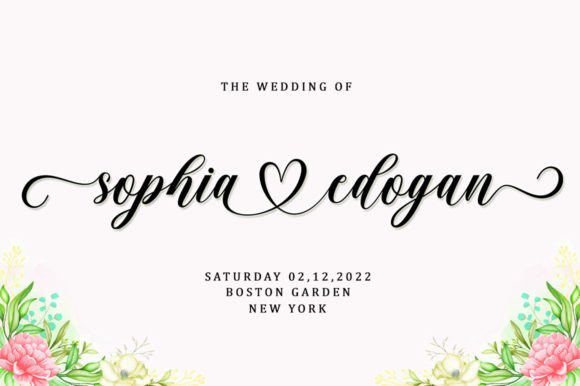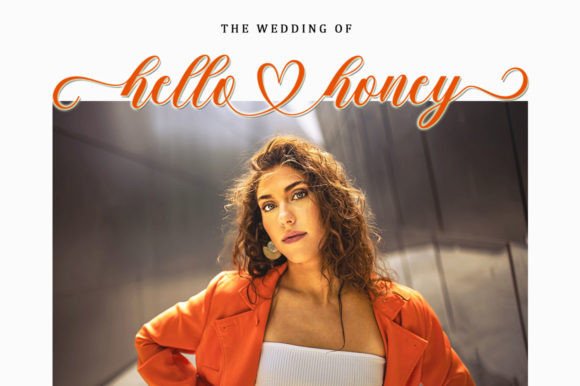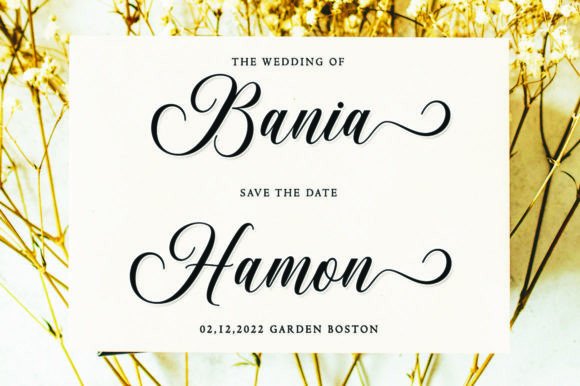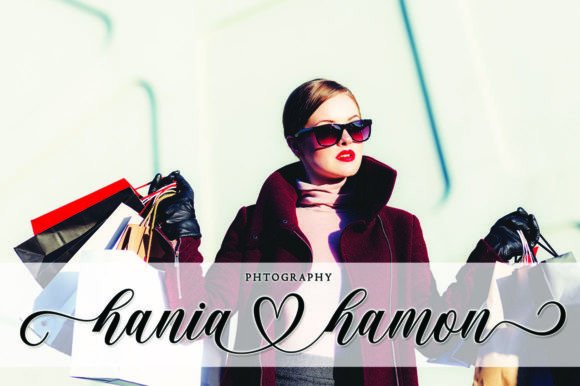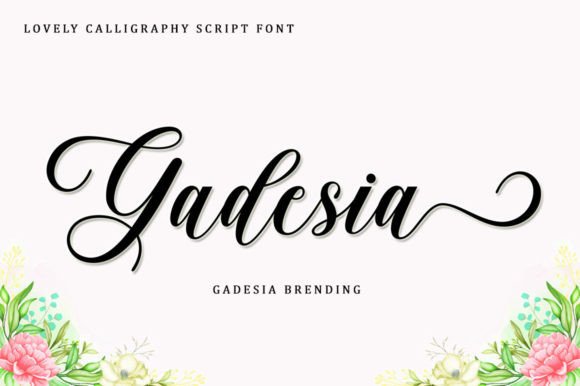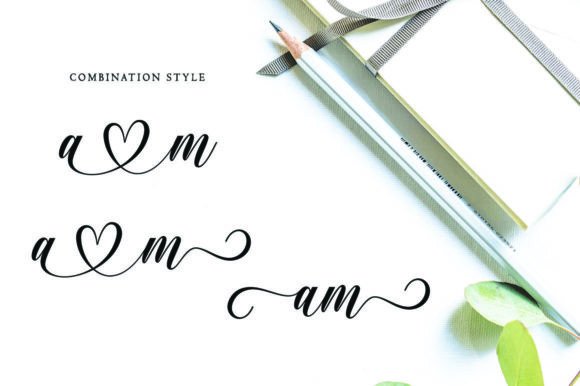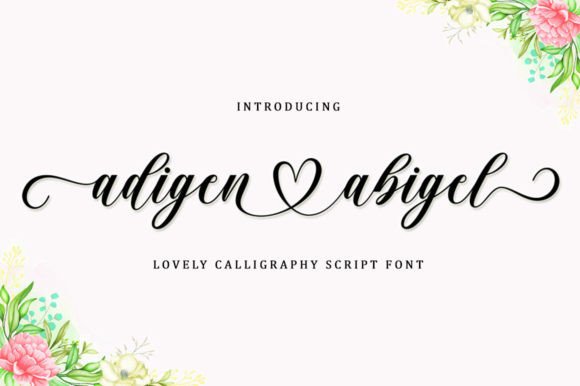
Introducing Adigen Abigel Font: A Modern Script Typeface with a Touch of Elegance
In the world of typography, fonts play a crucial role in conveying the tone and personality of a brand or design. For designers and crafters looking for a modern script font that exudes elegance and sophistication, Adigen Abigel is an excellent choice. This beautiful font is a classic copper decorative script typeface with a modern touch, designed with great detail to present a cute and elegant style.
What Makes Adigen Abigel Unique?
Adigen Abigel is a unique font that stands out from the rest due to its distinctive features. One of its most notable characteristics is the heart in the middle of the font, which adds a touch of whimsy and romance. The typeface is pleasing to the eye, clean, feminine, sensual, glamorous, simple, and very easy to read due to the many luxurious letter connections. These features make Adigen Abigel an ideal choice for designers who want to create stunning visual content that captures the essence of their brand or message.
Design and Encoding
Adigen Abigel is a meticulously designed font that boasts a high level of detail and craftsmanship. The font is PUA encoded, which means that you can access all of the glyphs and swashes with ease. This feature makes it simple to use and customize the font to suit your design needs. With Adigen Abigel, you can create beautiful and intricate designs that showcase your creativity and attention to detail.
Use Cases for Adigen Abigel
Adigen Abigel is a versatile font that can be used in a variety of design projects. Its classy and elegant style makes it suitable for formal forms such as:
- Invitations: Create stunning wedding invitations, birthday invitations, or any other type of invitation that requires a touch of elegance.
- Labels: Design beautiful labels for products, gifts, or any other item that requires a personalized touch.
- Restaurant Menus: Add a touch of sophistication to your restaurant menu with Adigen Abigel.
- Logos: Create a memorable logo for your brand that exudes elegance and style.
- Fashion and Makeup: Use Adigen Abigel to create stunning promotional materials for your fashion or makeup brand.
- Stationery: Design beautiful stationery, including notebooks, journals, and greeting cards.
- Novels and Magazines: Use Adigen Abigel to create visually appealing book covers or magazine layouts.
- Packaging: Add a touch of elegance to your product packaging with Adigen Abigel.
- Advertisements: Create stunning advertisements that capture the attention of your target audience.
Why Choose Adigen Abigel?
Adigen Abigel is an excellent choice for designers and crafters who want to create stunning visual content that exudes elegance and sophistication. Here are some reasons why you should choose Adigen Abigel:
- Unique Design: Adigen Abigel boasts a unique design that sets it apart from other fonts.
- Elegant Style: The font exudes elegance and sophistication, making it perfect for formal designs.
- Easy to Read: Adigen Abigel is easy to read due to its clean and simple design.
- Versatile: The font can be used in a variety of design projects, from invitations to advertisements.
- PUA Encoded: The font is PUA encoded, making it easy to access all glyphs and swashes.
In conclusion, Adigen Abigel is a beautiful modern script font that is perfect for designers and crafters who want to create stunning visual content. Its unique design, elegant style, and versatility make it an excellent choice for a variety of design projects. With its PUA encoding and easy-to-read design, Adigen Abigel is a font that can help you take your designs to the next level.